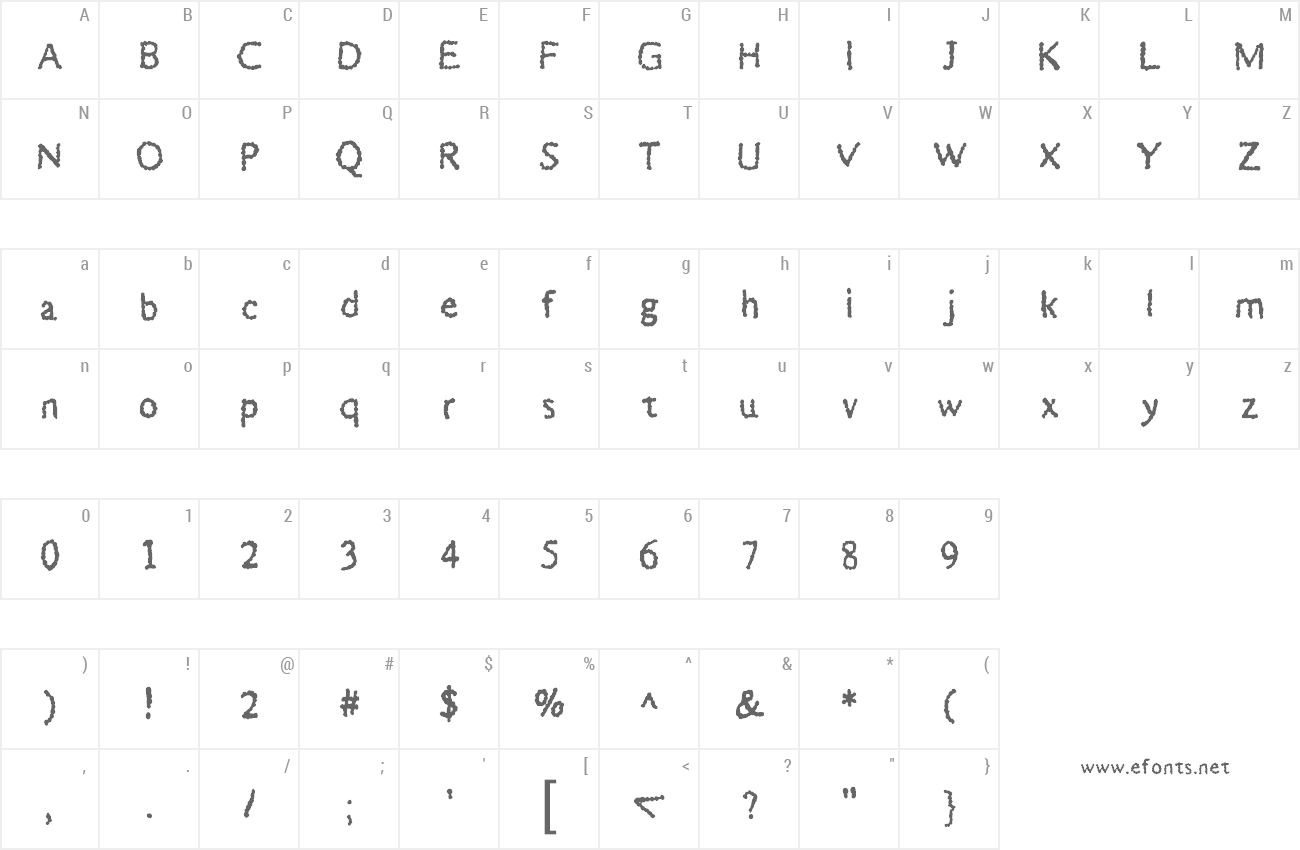
| Font name: | BubbleDub |
| Author: | Oliver Waldemar |
| Note by Oliver Waldemar | |
BubbleDub is a font made with dots. it works with this languages: ► English ► Swedish ► Danish ► Finnish ► Norwegian |